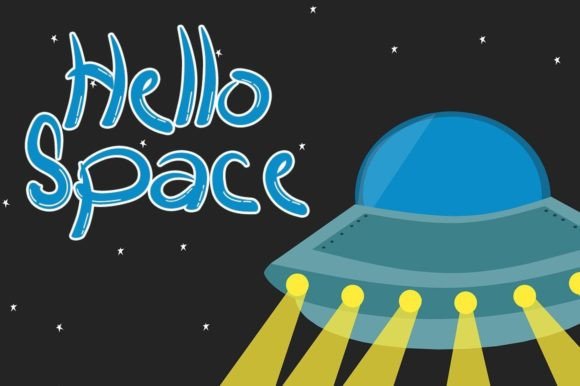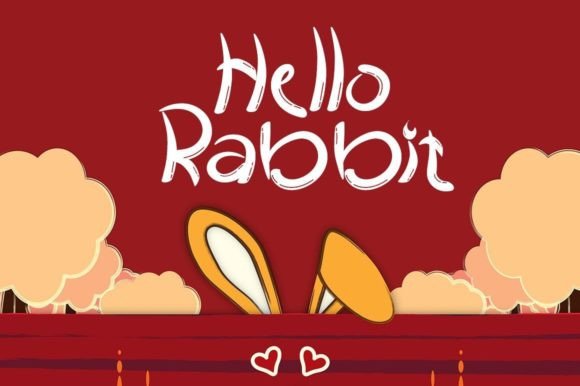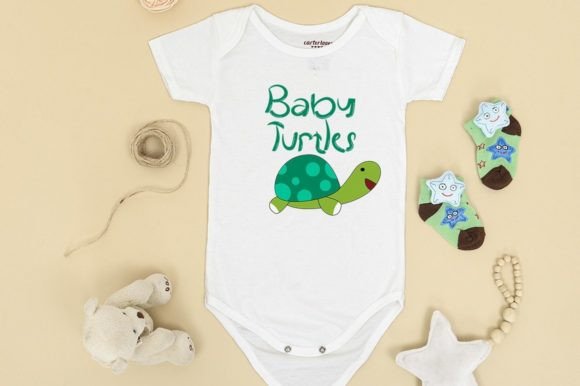
Discover the Joy of Design with Kids Monster Font
Remember the thrill of picking out your favorite crayons as a child? The vibrant colors and playful textures brought a world of imagination to life. As designers, we strive to recapture that same sense of wonder and creativity in our work. That’s where the Kids Monster Font comes in – a beautiful and sweet font that’s sure to bring a smile to your designs.
| 📌 Product Name | Kids Monster Font |
| 👤 Author | Bill Kiss Studio |
This elegant and fresh font is perfect for a wide range of projects, from informal social media graphics to formal business presentations. With its clean lines and joyful touch, the Kids Monster Font is sure to add a professional yet playful twist to your designs. Whether you’re a seasoned designer or just starting out, this font is a valuable addition to your toolkit, simplifying your design process and making your business look more beautiful than ever.
Kids Monster Font Key Features
- Font Style: A playful, child-friendly font with a monster theme, featuring bold lines and rounded edges.
- Character Count: The font contains a wide range of characters, including uppercase and lowercase letters, numbers, and special symbols, ensuring comprehensive use in various design contexts.
- Unique Characteristics: The font’s playful design makes it perfect for children’s books, educational materials, and other applications where a fun and engaging visual style is desired.
Designer Review: Kids Monster Font
Overall, I found the Kids Monster Font to be an interesting and unique addition to any project. Here are my thoughts:
- The font’s playful and whimsical nature is perfect for kids’ content, educational materials, and even some brand identities.
- The bold, colorful strokes give the font a lively and energetic feel that can help capture children’s attention.
- The font’s versatility in terms of size and color allows for a wide range of creative applications.
- The font may be too loud or overwhelming for more subdued designs or branding.
- The lack of subtlety in the font’s design may make it less suitable for more formal or professional projects.
- The font’s boldness can make it difficult to read in certain contexts, such as in small sizes or when used in conjunction with other bold fonts.
The Kids Monster Font is a great choice for projects that require a playful and attention-grabbing feel. However, it may not be the best fit for more serious or formal designs. With some careful consideration and planning, this font can be a valuable addition to any designer’s toolkit.
For a fun and playful design, combine the Kids Monster Font with colorful graphics and textures.
For a more advanced design, use the Kids Monster Font in conjunction with vector shapes and layers.
For a fun presentation, combine the Kids Monster Font with colorful graphics and animations.
The Kids Monster Font is perfect for:
- Fun and playful advertisements
For the best results, use the Kids Monster Font in conjunction with bright colors and playful graphics.
Dancing Script Font is a lively, handwritten font that is perfect for adding a touch of energy to your designs. It is ideal for use in branding, advertising, and editorial content. Dancing Script Font is more dynamic and expressive compared to Kids Monster Font, making it suitable for applications where you want to convey a sense of excitement and movement.
Q: What is the recommended font size for the Kids Monster Font?
The recommended font size for the Kids Monster Font is between 12pt and 24pt. This range provides optimal readability for both children and adults. However, feel free to experiment with different font sizes to achieve the desired visual effect for your design project.